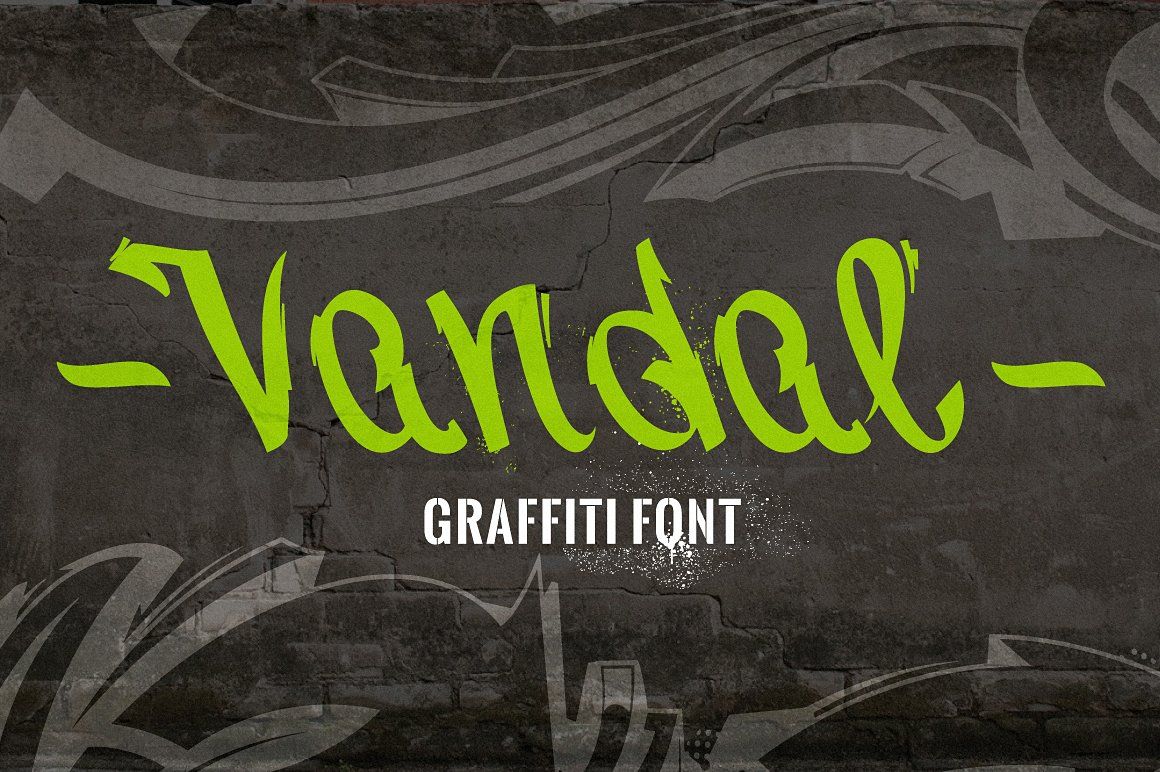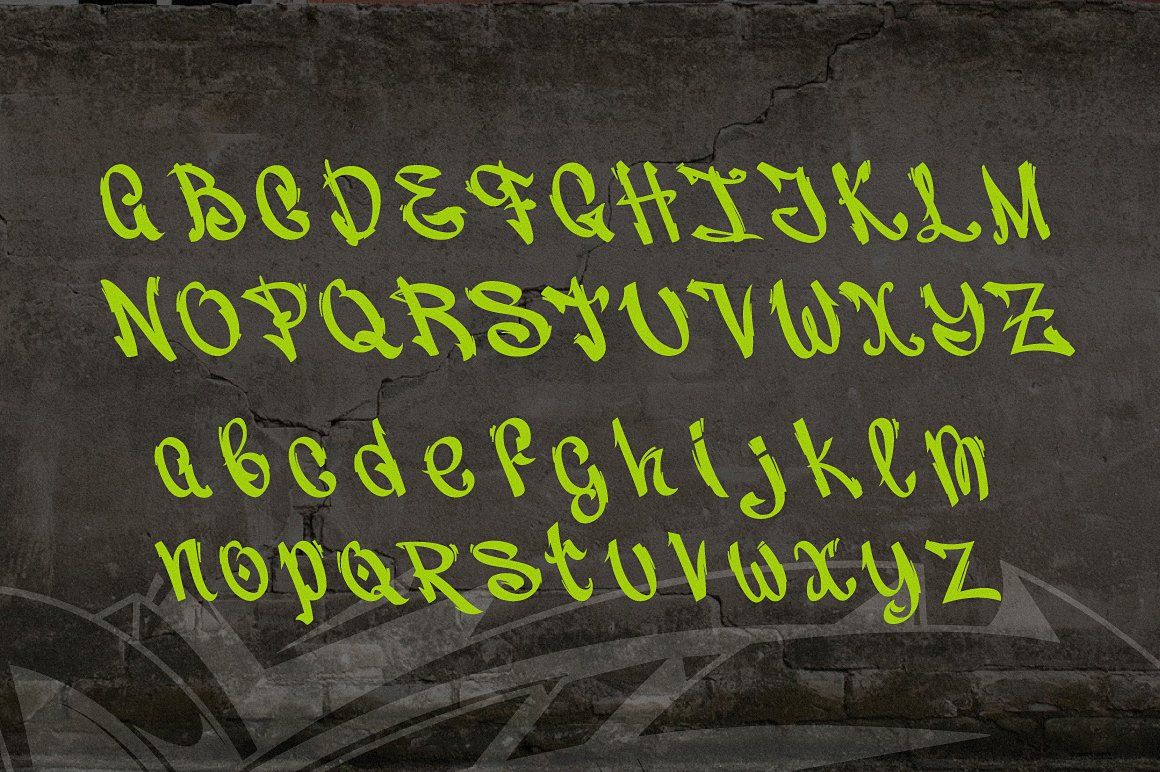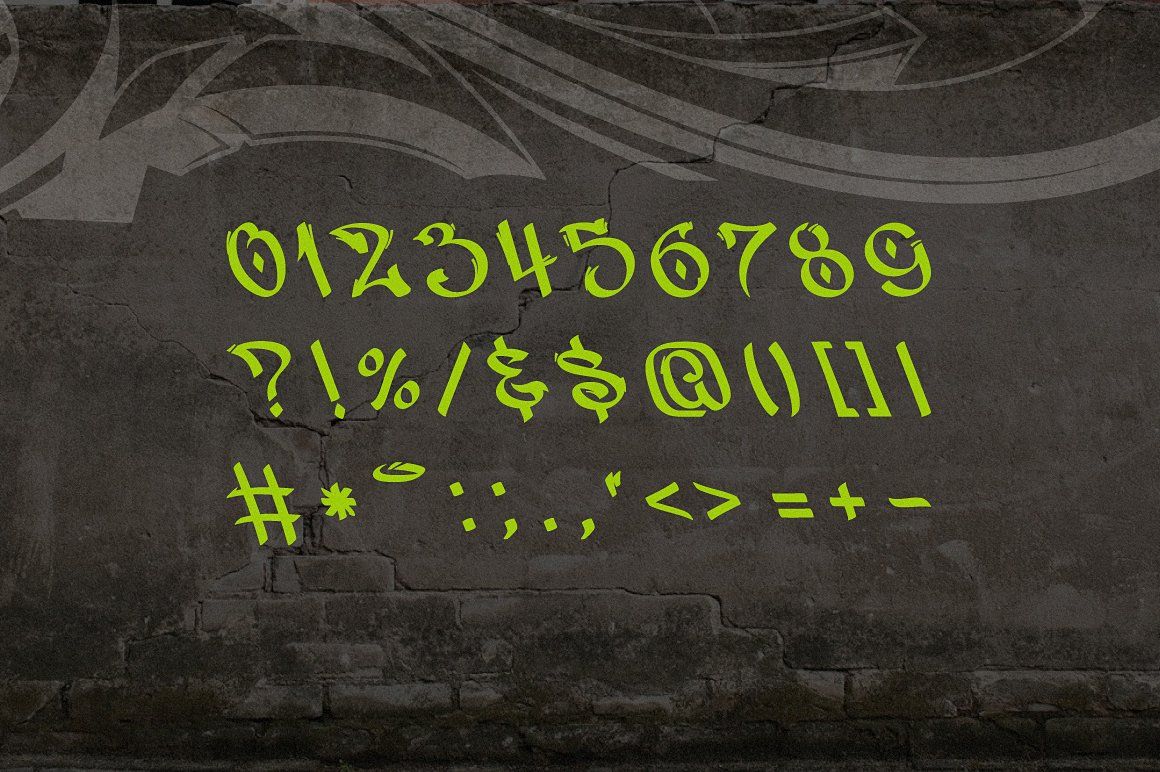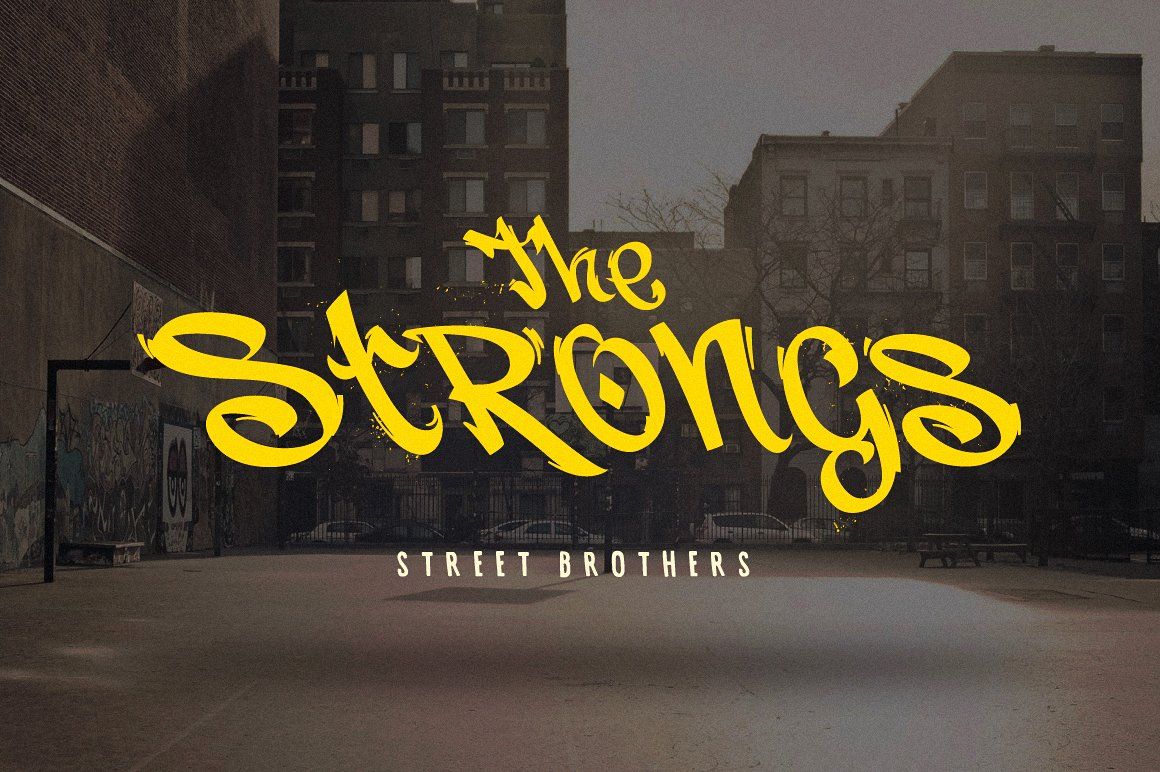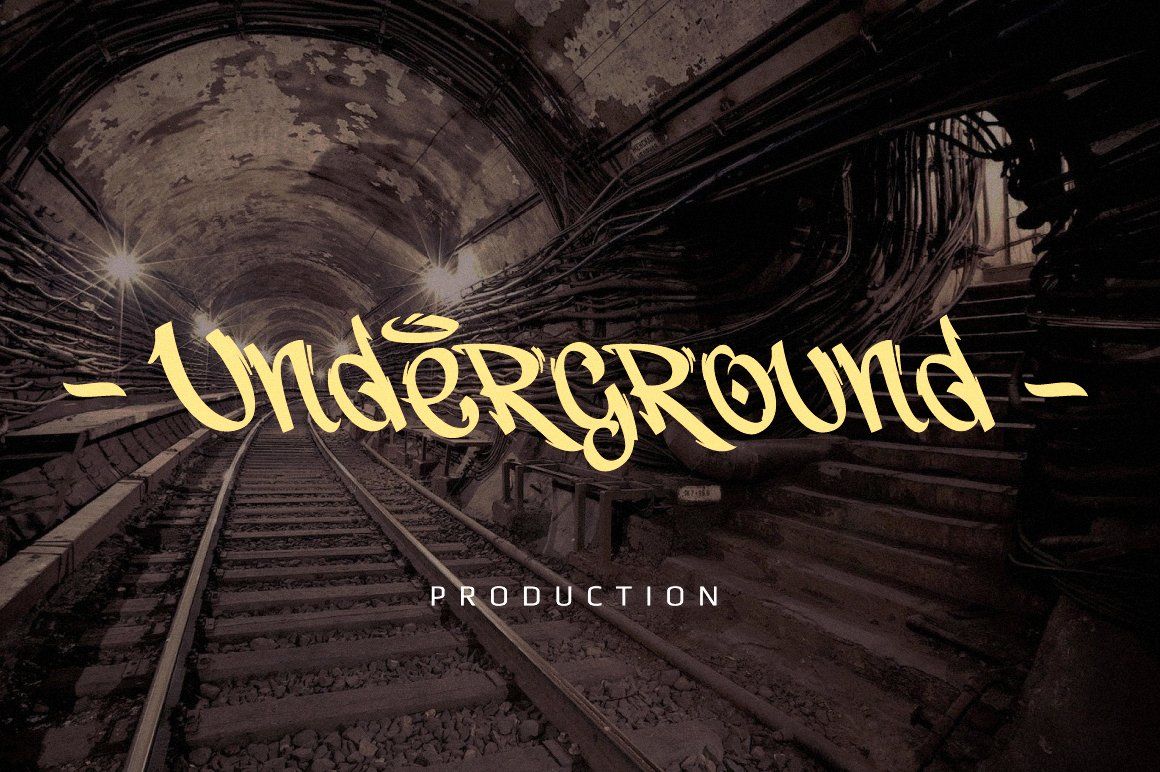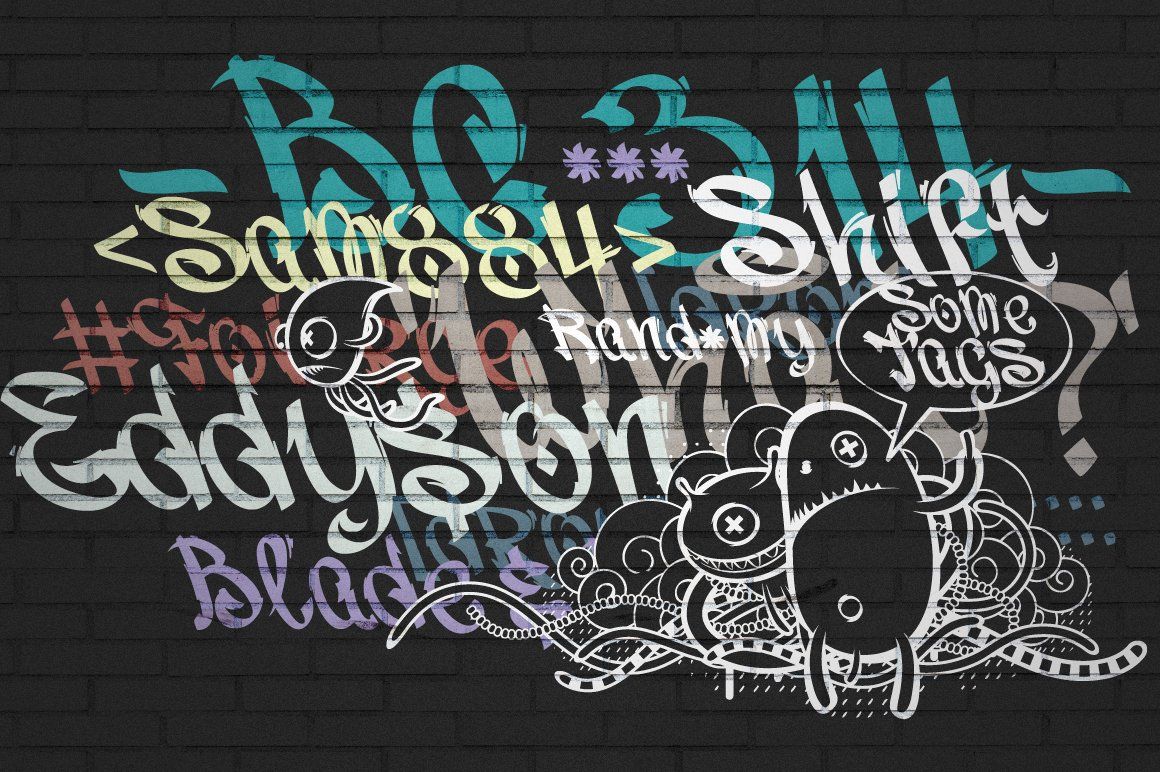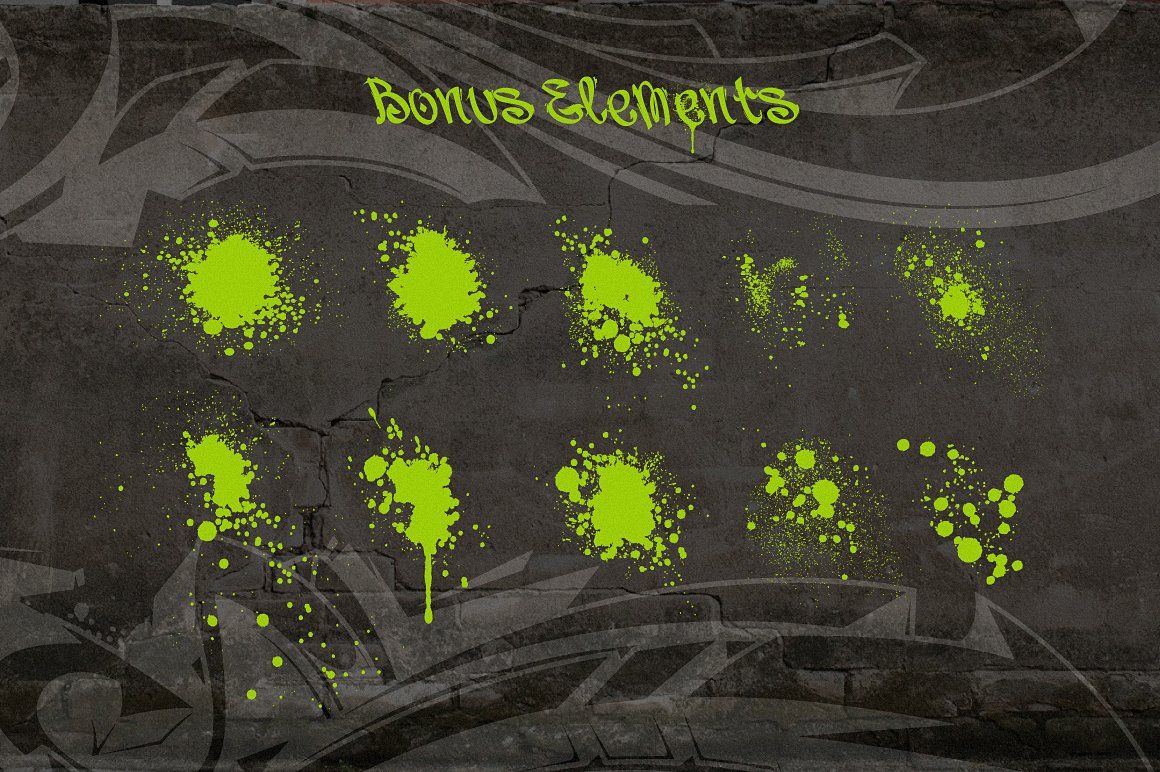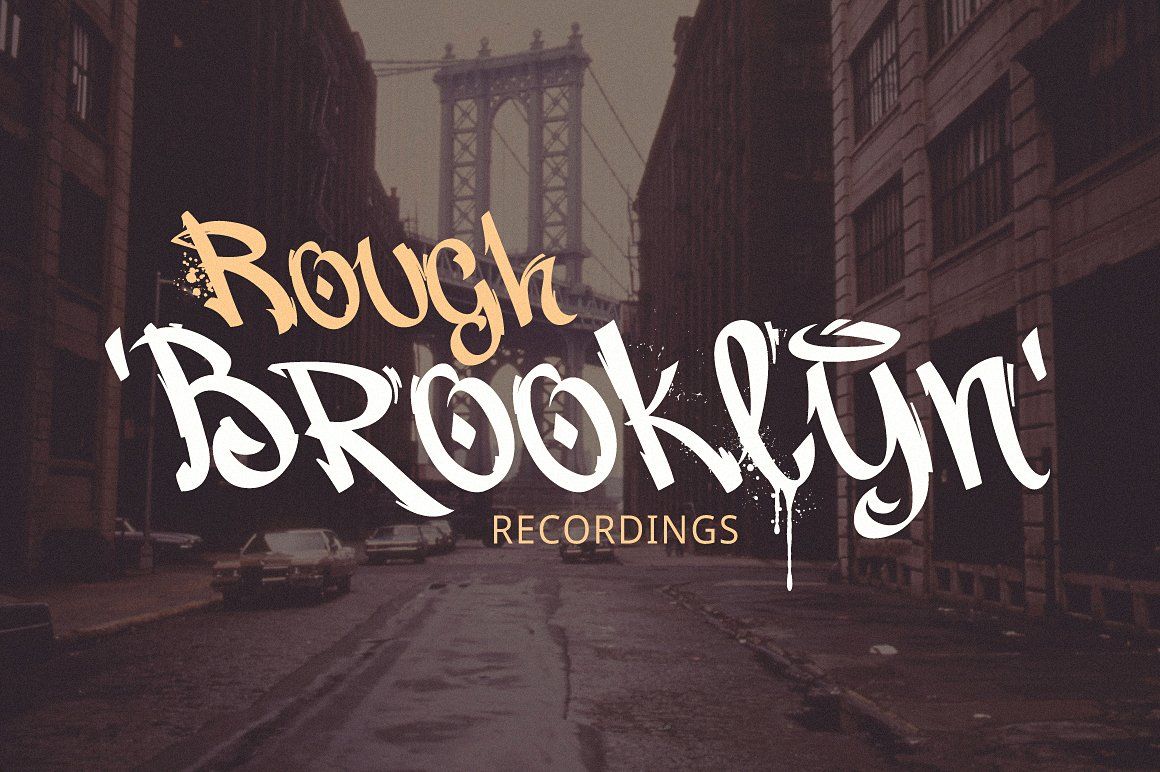
Vandal is a font inspired by street art, energy of big cities and underground culture. The sloppy, inclined letters of the Vandal font will help you recreate the mood of the street atmosphere of the 80s - 90s. And additional bonus design elements will allow you to do this most realistically. Vandal is perfect for design projects in the style of hip-hop, old school and urban.